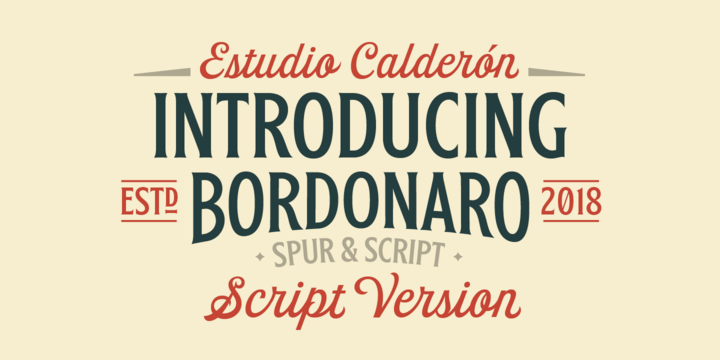
Bordonaro Script Font
Bordonaro Script – Bordonaro Spur’s partner – is an interpretation of the “English Roundhand” style with a strong influence by the logos of American basketball and baseball teams. It is designed from simple shapes ideal to be used in long titles and fits perfectly into the branding design.